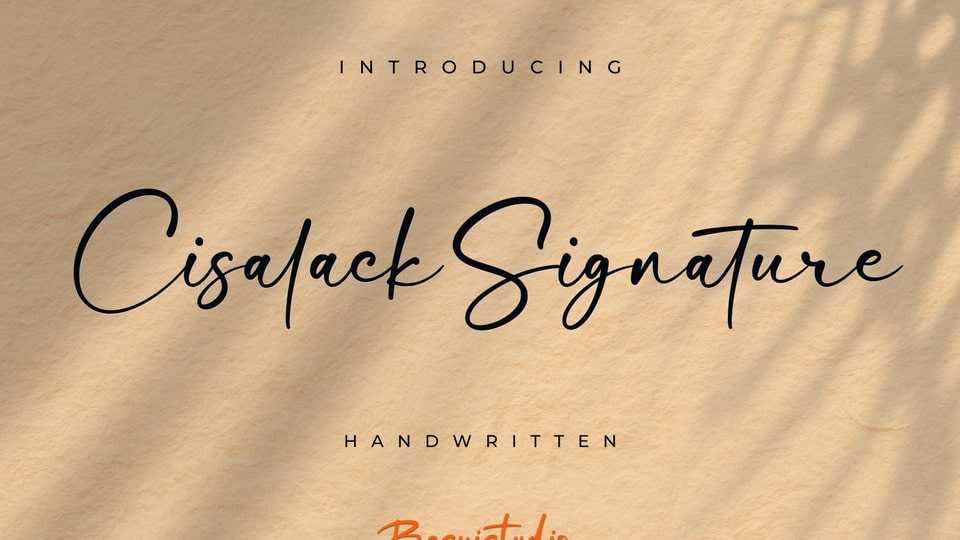
Download Cisalack Signature font, a casual handwritten typeface made with a natural style and precision, perfect for branding, websites, and editorial designs.